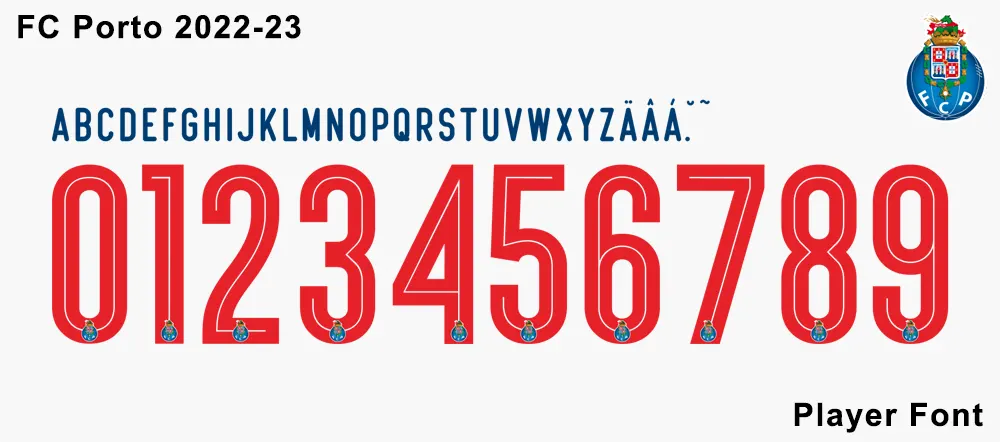
FC Porto 2022/2023 jersey was released, and FC Porto 22-23 Font was also released. This Font will be used in the European Champions League and other domestic and European Cup matches.